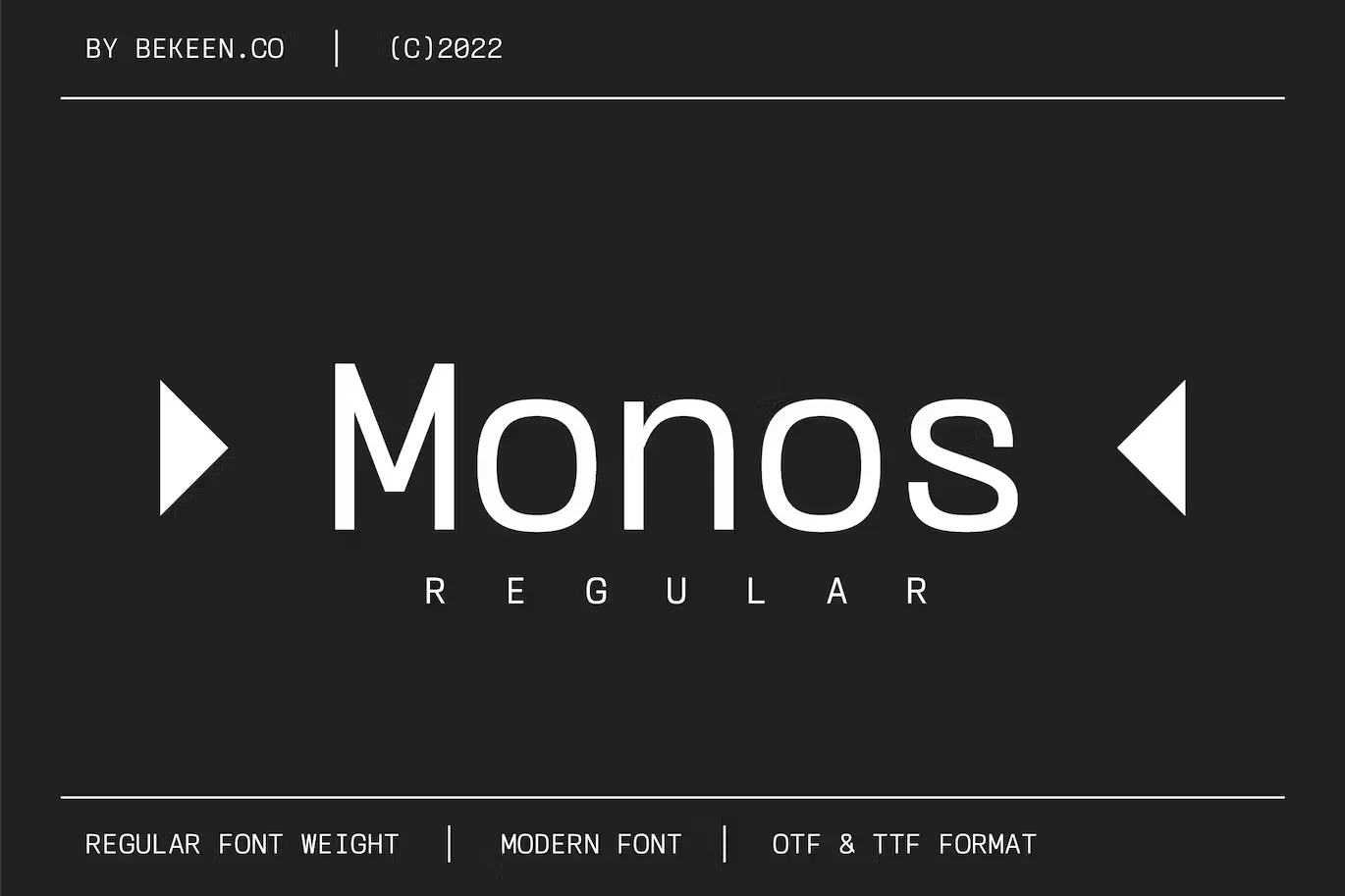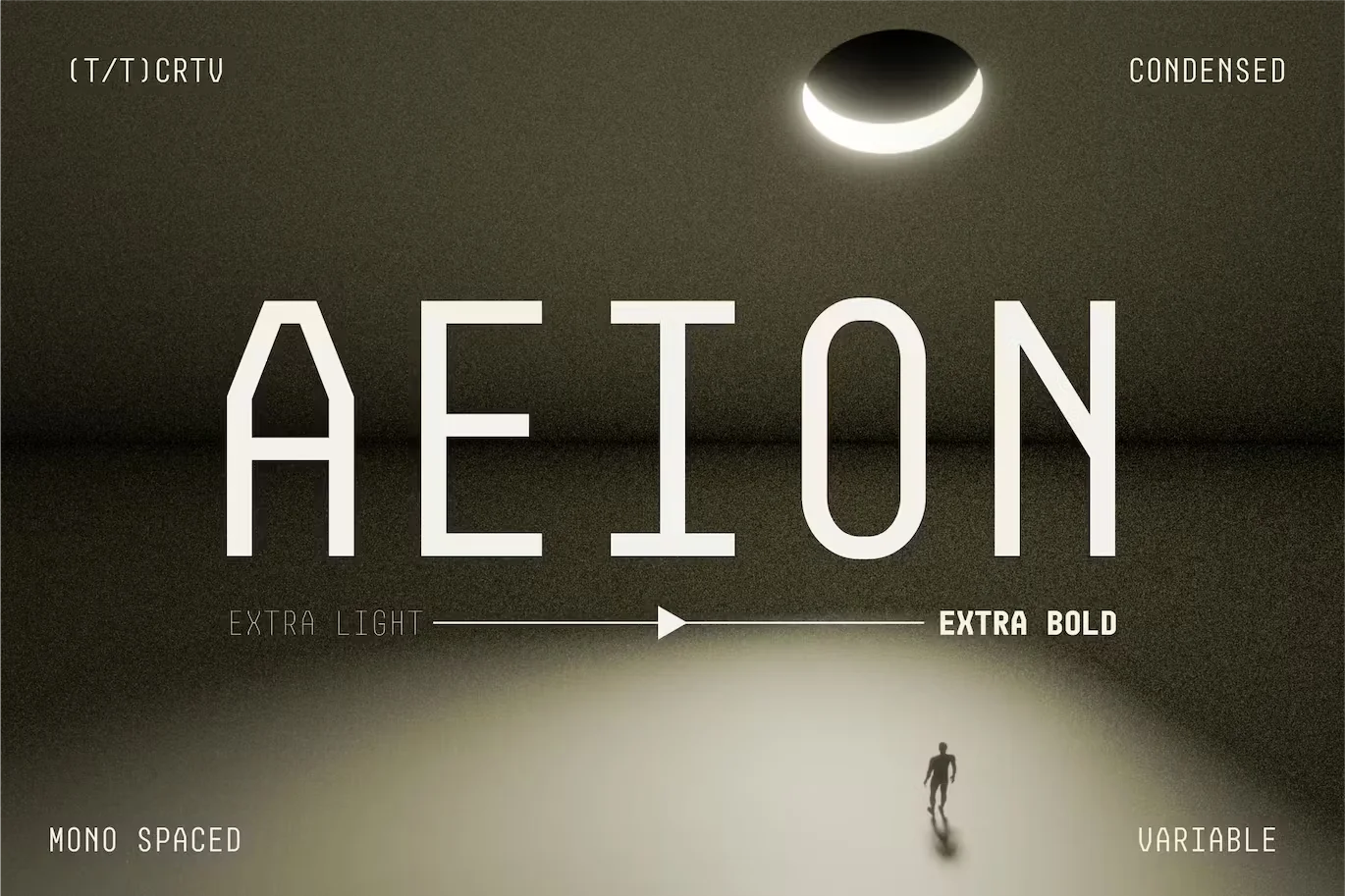
30 Monospaced Fonts, Free and Perfect for 2025
Monospaced fonts are easy to read and look clean. Every letter takes up the same space, which makes the text feel neat and balanced. These fonts are often used in coding, design layouts, and projects that need a simple, modern look.
In this list, you will find 30 free monospaced fonts that are great for different design needs. You can use them in websites, apps, posters, or anything that needs a clear and steady font style.
Why monospaced fonts are your new best friend?
Before we get into our big list, let’s talk about why these fonts are so great. In a monospaced font all the letters are the same width, making everything look clean and lined up. This is great for things like writing code for websites or creating attractive posters. They make everything easy to read and look really nice, giving your work a clean and organized feel.
We’ve got a great list of 30 free monospaced fonts that are perfect for making your design projects really stand out in 2024. Whether you’re placing a logo, setting up a website, or creating something artistic, these fonts will give your work a little extra personality and make it look super professional.
Monospace Font
A modern monospaced font with futuristic themed, thinking about Interstellar or Gravity. Monos is sleek and sophisticated, suitable for heading and paragraph as well. It’s perfect for movie titles, game titles, websites, mobile apps, posters and more.
Informe – Monospaced
Informe is a modern monospaced typeface. Built with strong letter shapes, and industrial taste. This typeface was designed to read well in small and large sizes. Informe is suitable for digital interface, simple coding, label, editorial, tickets, and more.
Mononten – Monospaced
Mononten is perfect to use for Logotype, Letterhead, Poster, Apparel Design, Label and etc. The alternative characters were divided into several features such as Stylistic Alternates and Ligature.
Livemono Monospaced Font
Livemono is a new monospaced sans serif. It looks clean and and very suitable for coding style. The typeface is versatile to blend in your design- with 6 weight, ranging from bold, light, medium, regular, semibold, and thin. Perfect anywhere you need a right finas touches for branding, publishing, titles, book, magazine , and use on UI/UX design.